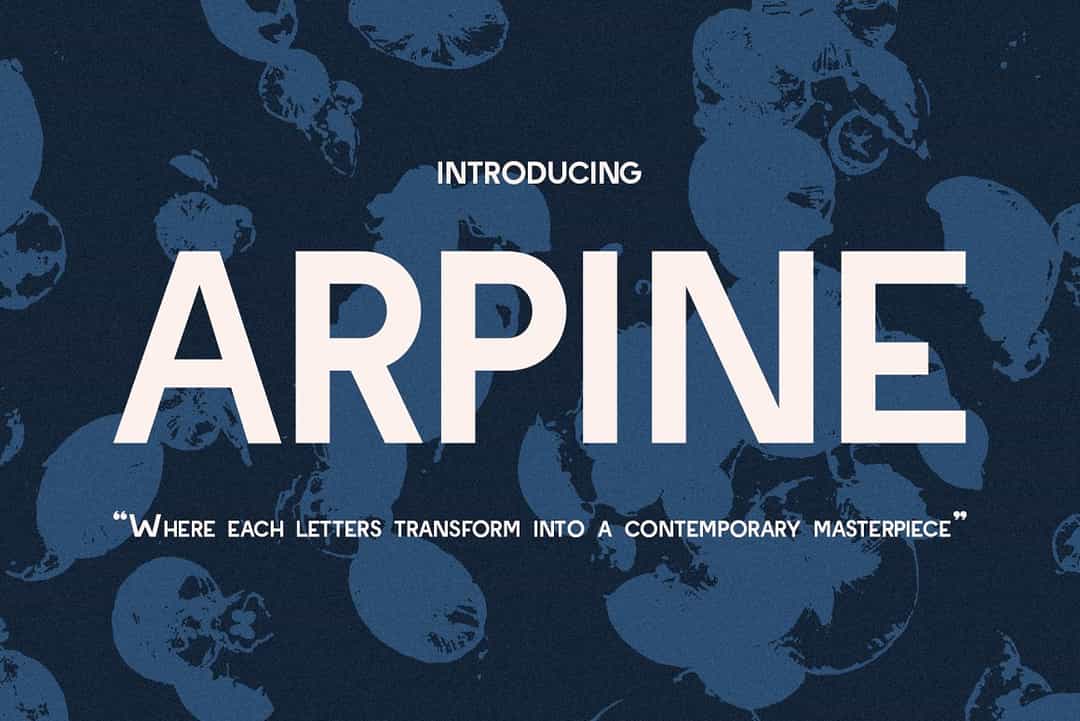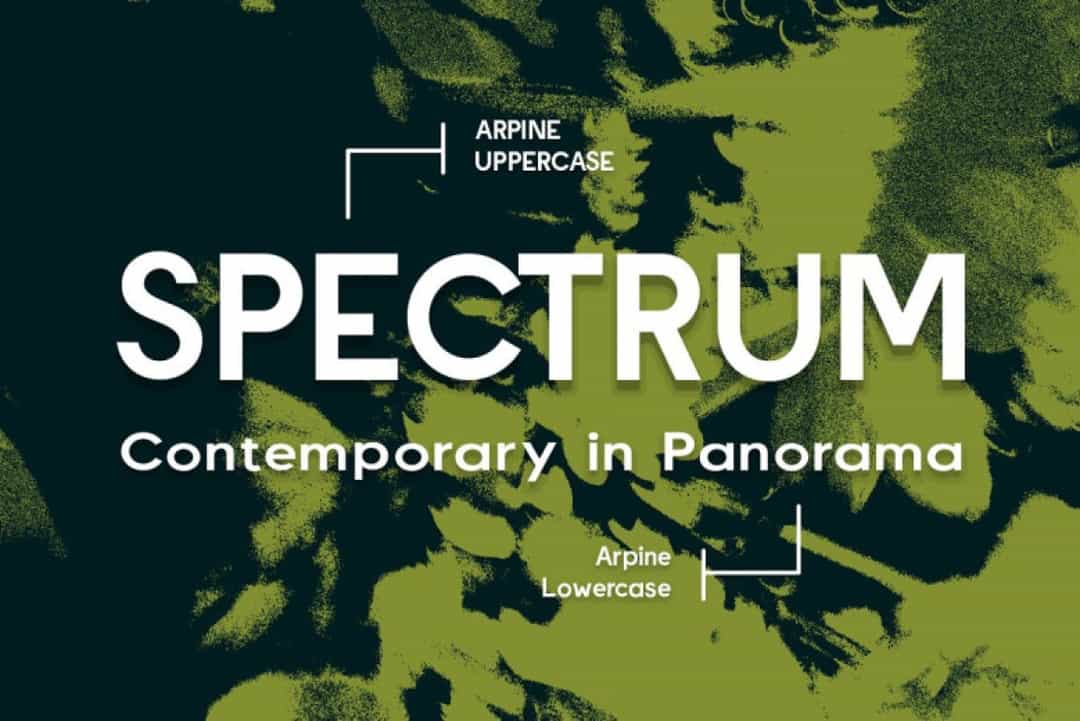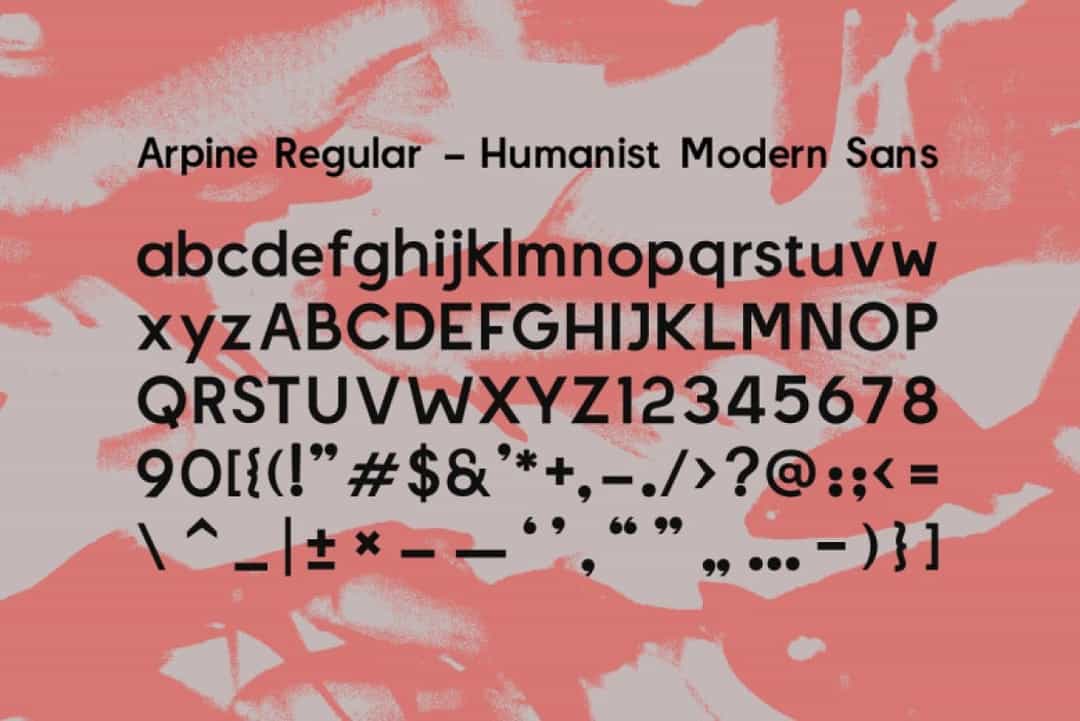
Arpine is a serif-free font with a modern aesthetic and clean letters with simple forms. The strokes and letters appear strong with sharp angles and clear lines, creating an eye-catching and elegant aesthetic. Arpine’s strokes and letters display strong angles for an authoritative appearance – giving Arpine its powerful yet confident vibe.